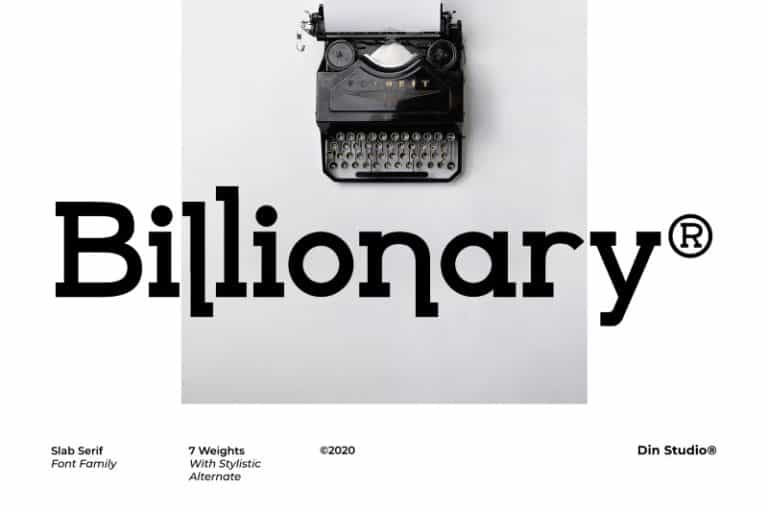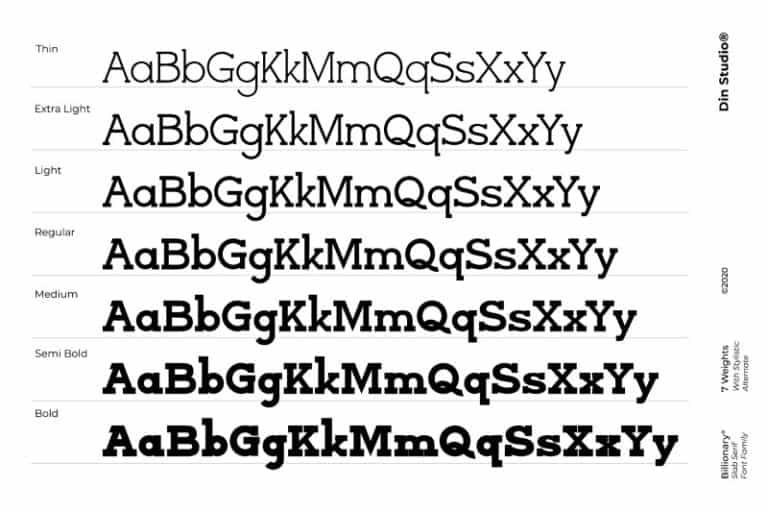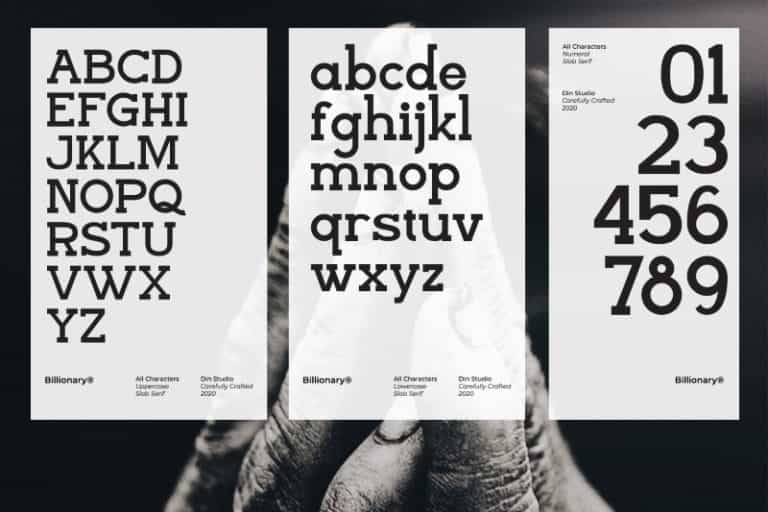
Discover Billionary Font, part of the Slab Serif collection—a versatile and unique font perfect for adding a personal touch to your projects. Download it for free and enjoy crafting designs with style, from invitations to social media posts. This font is available exclusively for personal use, giving you the freedom to create without limits. Unlock your creativity with Billionary Font today!
Billionary Font is an Slab-Serif font family that will appeal to both clients and customers. By choosing this font family, you’ll have access to various ways of engaging them both simultaneously.